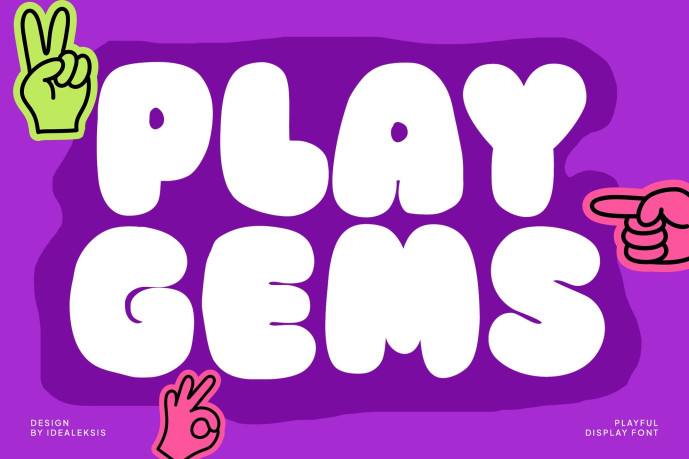
Play Gems – Playful Font
Designer: Idealx
Play Gems – Playful Font is a playful display font featuring ultra-bold, rounded letterforms with a charming bubble-like aesthetic. Its soft curves and chunky shapes create a fun, cheerful, and energetic visual style that instantly grabs attention. The font delivers a cute and friendly personality, making it perfect for children’s designs, playful branding, posters, packaging, social media graphics, and creative headlines. With its bold and expressive appearance, Play Gems adds a lively and joyful touch to any project.